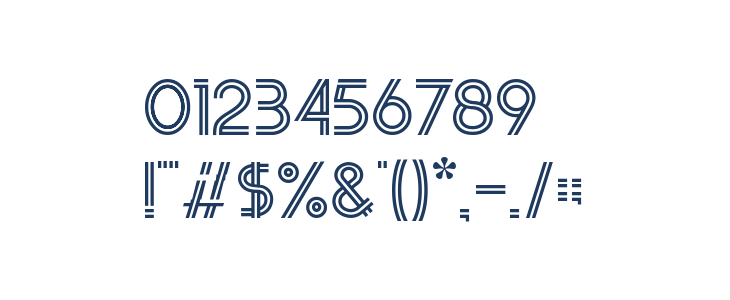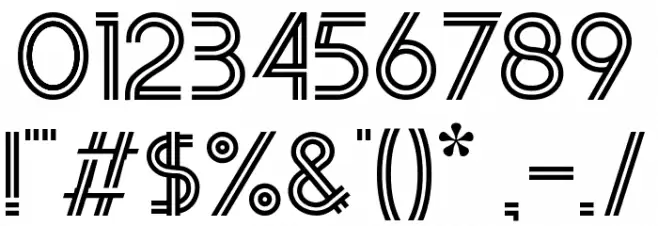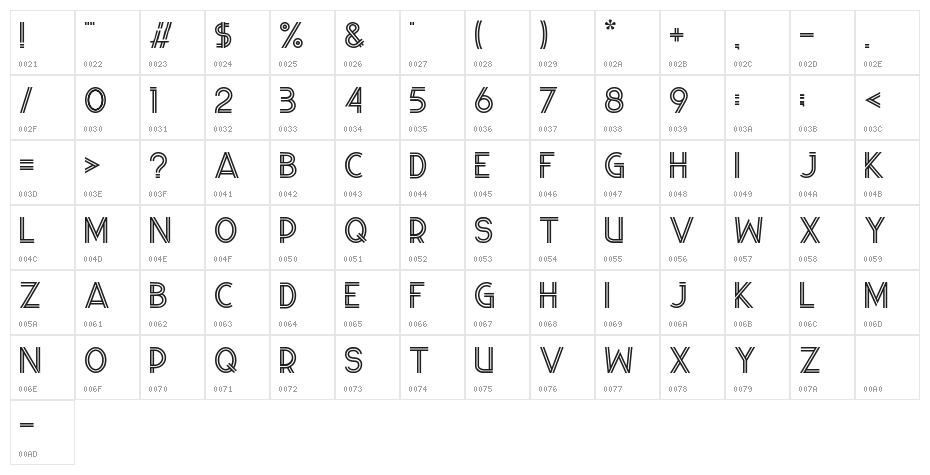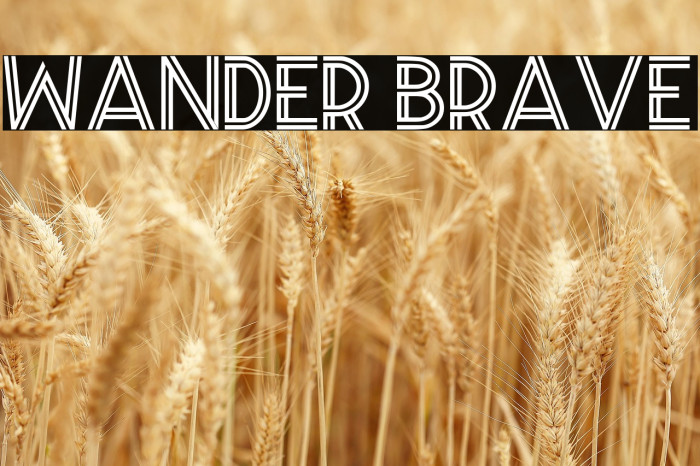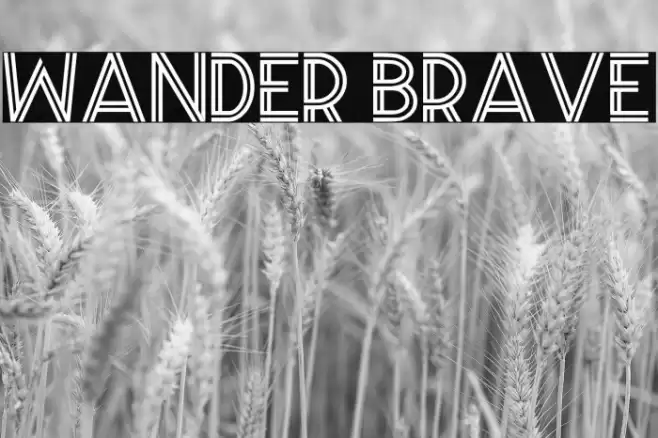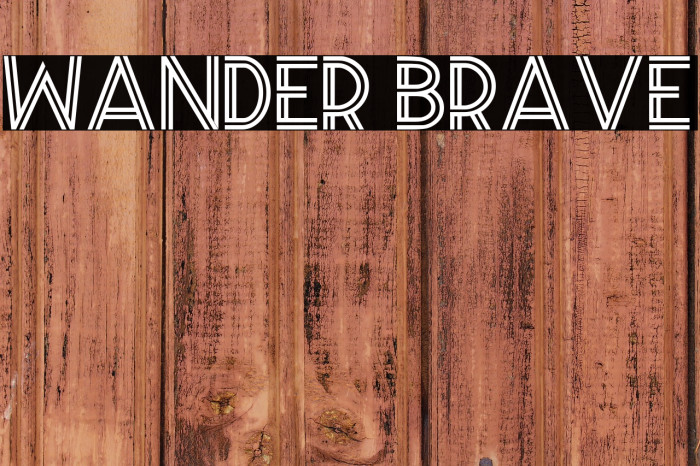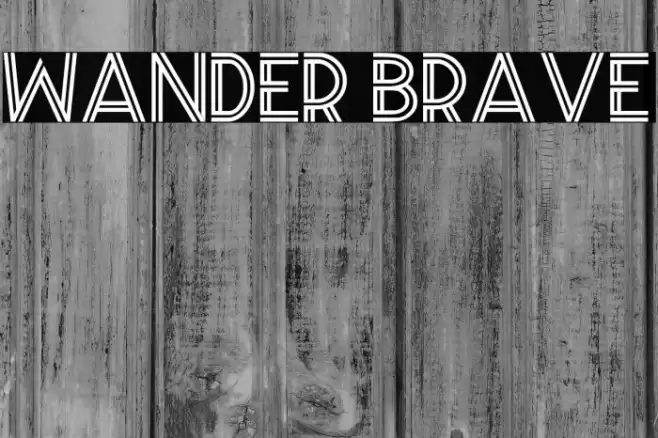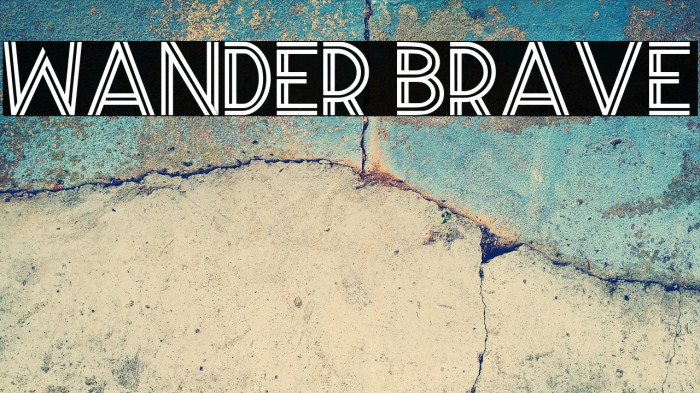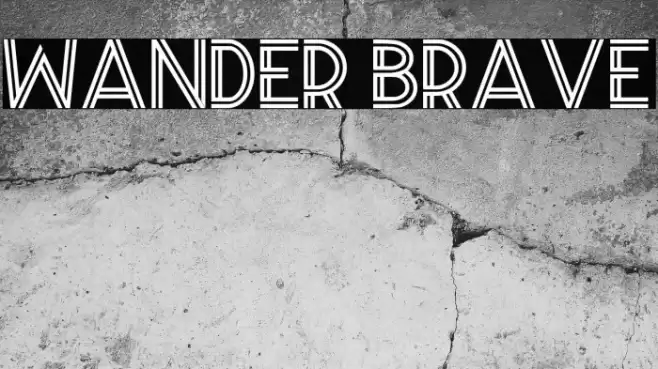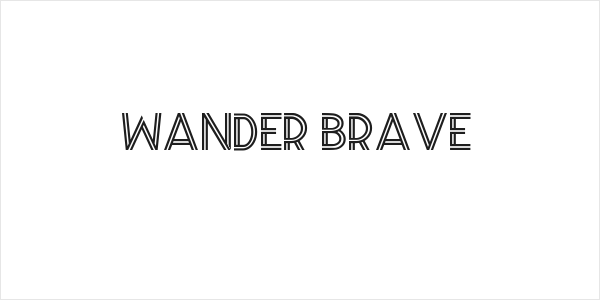
Wander Brave Font
Wander Brave Description
This font features a bold, geometric design with a distinct double-line structure that gives it a modern and dynamic appearance. The characters are crafted with precision, showcasing a blend of straight lines and sharp angles, which contribute to its futuristic and stylish look. The uppercase and lowercase letters maintain a consistent style, while the numerals and special characters are designed to complement the overall aesthetic. The font's unique structure makes it stand out, making it ideal for projects that require a contemporary and eye-catching typeface.
| Proposed Projects | Ideal for branding, posters, headlines, and any design project that requires a modern and striking typeface. |